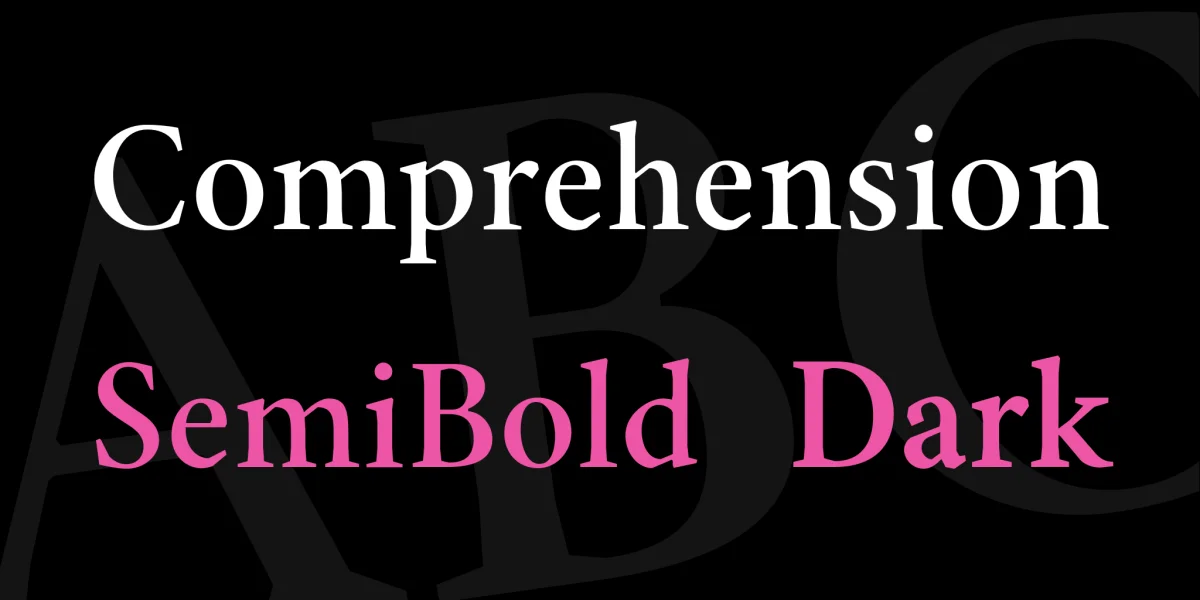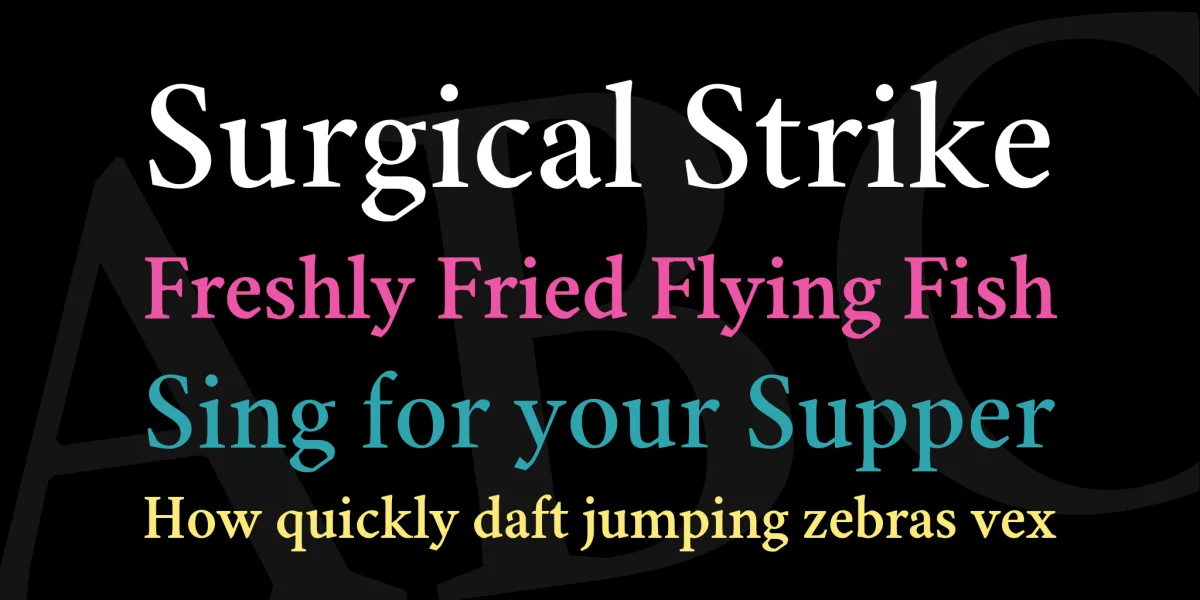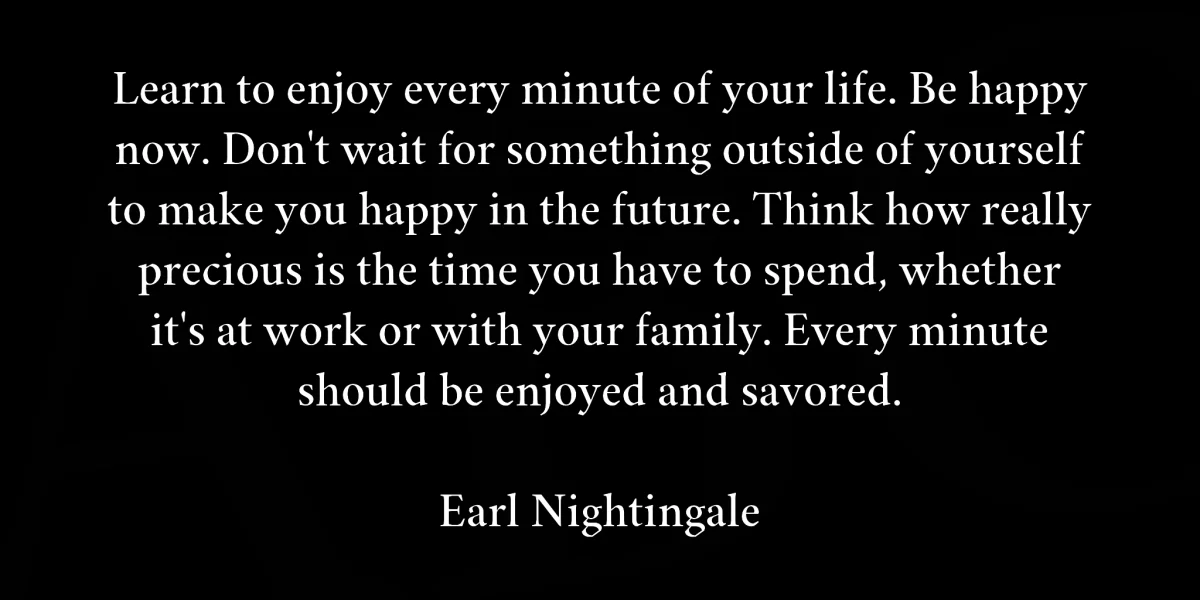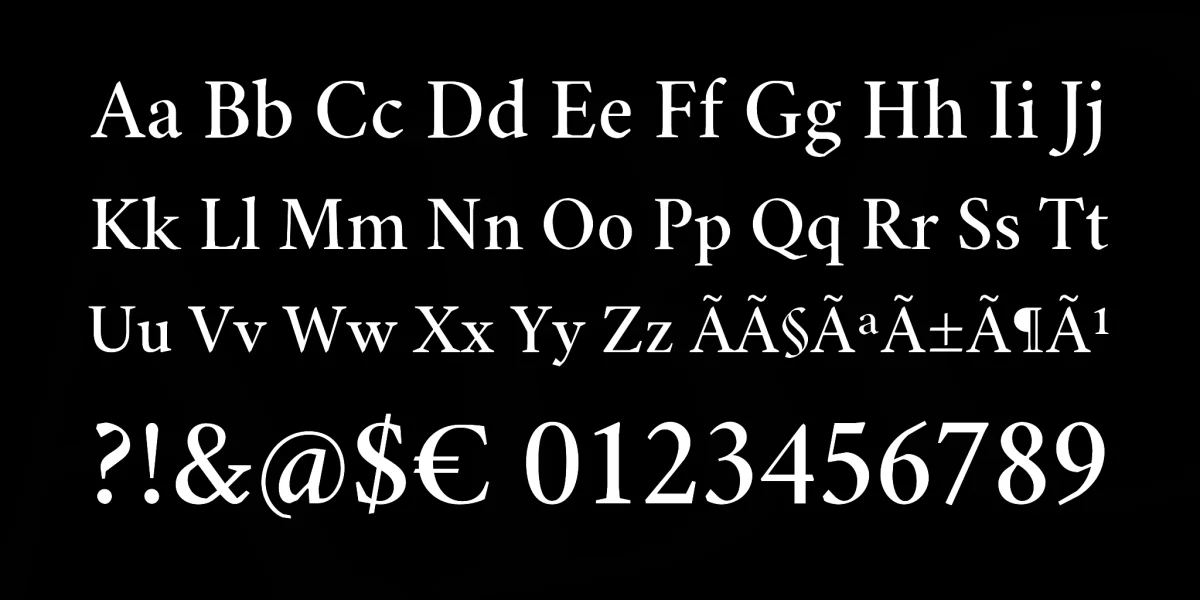
Comprehension™ is a one-weight serif typeface designed for body text and small headlines. Please support us at Hanken Design Co. (http://hanken.co) and JAM Design (http://wearejam.co) by donating or by appreciating our work.